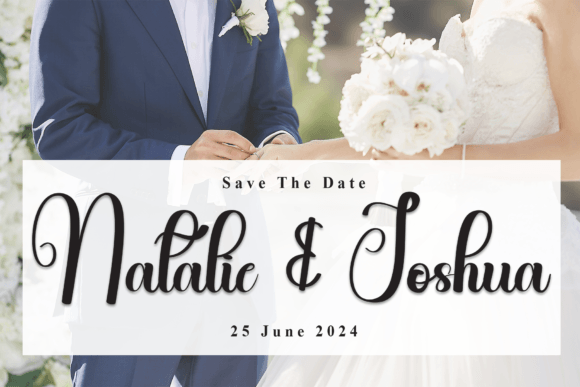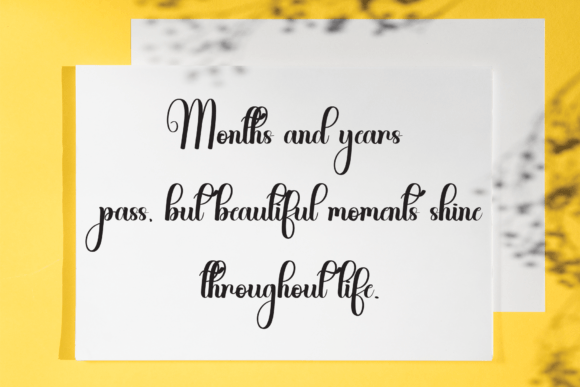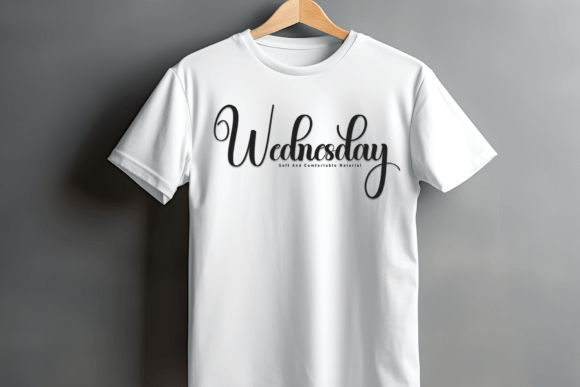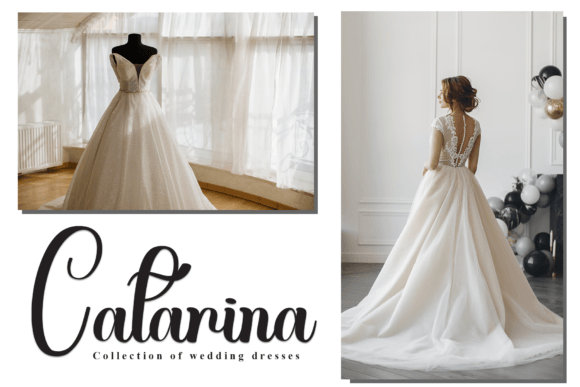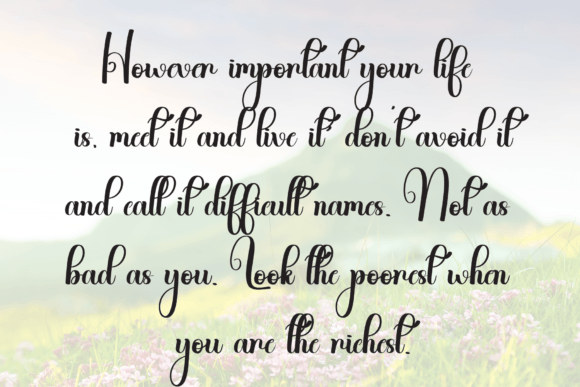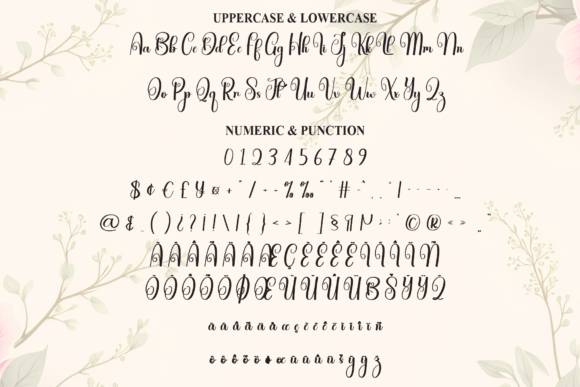
Introducing Bigdey Font: The Ultimate Choice for Whimsical Designs
In the world of typography, fonts play a crucial role in bringing a design to life. When it comes to creating enchanting wedding invitations, lovable cards, and joyful proclamations, the right font can make all the difference. This is where Bigdey Font comes in – a delightful handwritten font that adds a touch of charm and friendliness to any design. In this article, we’ll explore the unique features of Bigdey Font and why it’s the perfect pick for designers and crafters looking to add a whimsical touch to their creations.
The Charm of Bigdey Font
Bigdey Font is a beautiful, handwritten font that exudes warmth and friendliness. Its unique charm lies in its ability to add a touch of playfulness and fun to any design. The font is carefully crafted to bring a sense of joy and merriment to your creations, making it perfect for wedding invitations, birthday cards, and other celebratory designs. With Bigdey Font, you can create designs that are not only visually appealing but also emotive and engaging.
Key Features of Bigdey Font
So, what makes Bigdey Font so special? Here are some of its key features:
- Handwritten style: Bigdey Font has a beautiful, handwritten style that adds a personal touch to your designs.
- Whimsical feel: The font has a whimsical feel that’s perfect for creating playful and fun designs.
- Charming and friendly: Bigdey Font is designed to be charming and friendly, making it perfect for wedding invitations, birthday cards, and other celebratory designs.
- Easy to read: Despite its playful style, Bigdey Font is easy to read, making it perfect for designs that require a clear and legible font.
Why Choose Bigdey Font?
With so many fonts available, why choose Bigdey Font? Here are just a few reasons why Bigdey Font is a great choice for designers and crafters:
- Unique style: Bigdey Font has a unique style that’s sure to make your designs stand out.
- Versatile: The font is versatile and can be used for a wide range of designs, from wedding invitations to birthday cards.
- Easily customizable: Bigdey Font is easily customizable, allowing you to adjust the font size, color, and style to suit your design needs.
- High-quality: Bigdey Font is a high-quality font that’s designed to produce crisp and clear results.